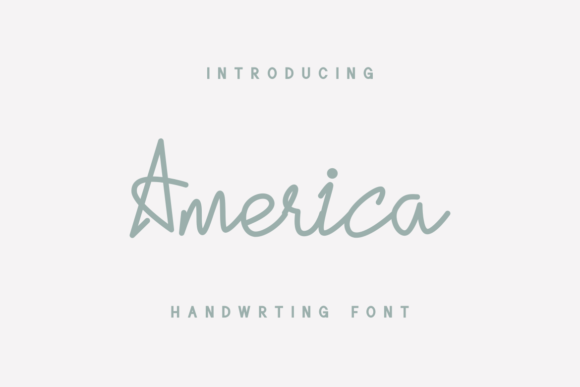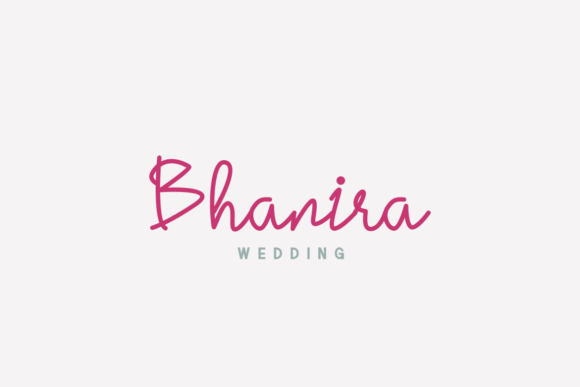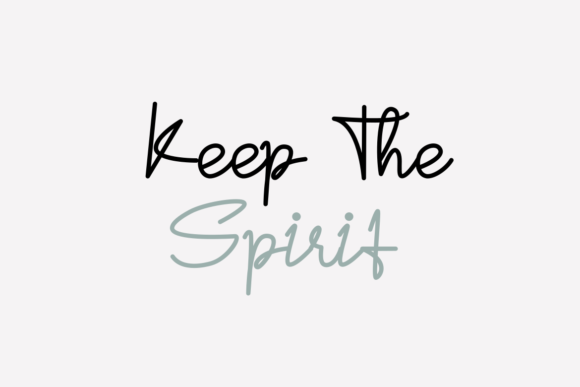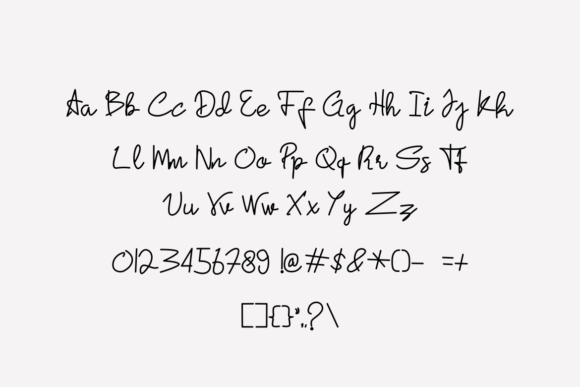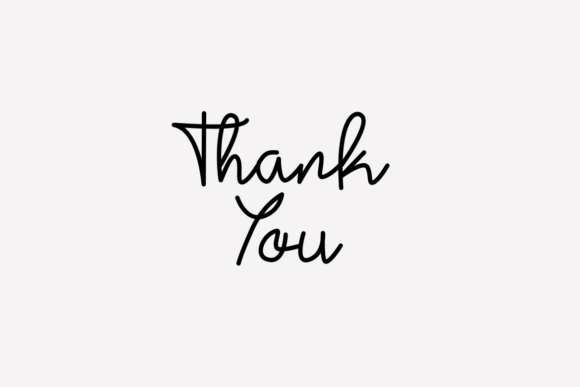
America Font
About America Font
America is a sweet and simple handwritten font, designed to fit a wide range of contexts. Add it to your creative ideas and make them come alive.